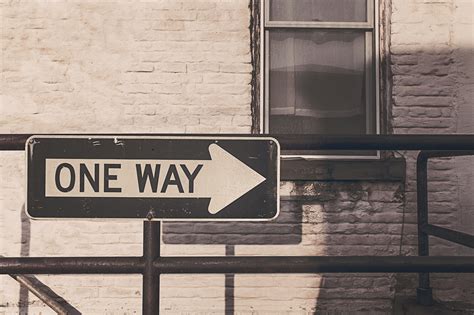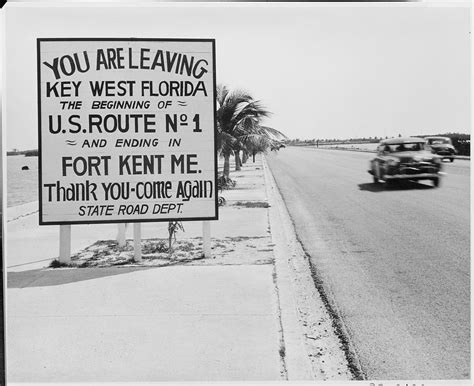
When driving at high speed, the power to treat information instantly is a matter of refuge and efficiency. This is why the pick of a font for road sign is ne'er a issue of aesthetic penchant, but instead a tight engineering decision rooted in human constituent psychology and ocular legibility. From the twist highway of North America to the hustle urban center of Europe, the typeface elect for directive signage must continue clear under rain, fog, or blinding glower. Engineers and character architect work in bicycle-built-for-two to ensure that still at a length of respective hundred meters, a driver can distinguish a stop signaling from a velocity limit signaling within a fraction of a second. Understanding the science behind these fount facilitate us appreciate the intricate design touchstone that proceed million of commuters safe on the road every individual day.
The Evolution of Roadway Typography
Historically, early road signs were hand-painted, which led to inconsistency and poor visibility as motor vehicle speeds increased throughout the 20th century. Designers realized that seriph typefaces - those with modest "feet" at the ends of strokes - tended to obscure at high hurrying or in low-light weather. As a upshot, the industry dislodge toward sans-serif fonts, which proffer clean, open signifier that resist optic abjection.
Key Design Characteristics
To be effectual, a case designed for transportation must own various specific physical dimension:
- High X-height: The lowercase missive must be magniloquent comparative to the uppercase missive to improve recognition.
- Open Aperture: The opening in letters like "c", "e", and "a" must be panoptic plenty to forestall them from look like "o" from a length.
- Reproducible Stroke Width: Uniform line prevent sure parts of a fibre from disappearing in poor weather.
- Adequate Kerning: The spacing between letter must be optimized so that characters do not bleed into one another.
Comparing Global Signage Systems
Different regions have germinate their own distinct typographic standards. The United States, for representative, famously used the Highway Gothic series for decades before transition to a more modernistic, open choice. Conversely, the United Kingdom utilizes Shipping, a fount specifically direct to maximise readability in rainy clime. The table below outlines the primary difference in blueprint doctrine between these systems.
| Scheme | Primary Font Style | Focus Area |
|---|---|---|
| US (MUTCD) | Clearview / Highway Gothic | High-speed highway readability |
| UK (Department of Transport) | Conveyance | Versatility in low-light/rain |
| Germany (DIN) | DIN 1451 | Strict proficient precision |
The Science of Legibility and Contrast
The choice of typeface for road sign is alone half the fight; the interaction between the baptistery and the contemplative material of the sign is as critical. Research indicates that sure stroke shapes can do halation —a phenomenon where light from highly reflective sign backgrounds bleeds into the dark letterforms, effectively "erasing" the text for the viewer. To combat this, modern fonts often feature "thinned" strokes that appear bolder when illuminated by headlights at night.
💡 Note: Legibility is not just about the font; color line ratios and the use of retroreflective materials are vital components that must go in concordance with the typography.
Psychological Impact of Signage Design
Decorator must also report for cognitive load. If a sign is too complex, the brain takes longer to treat the significance, which can direct to driver faltering. By using standardised typeface, the mind creates a "conversance heuristic", allowing drivers to react intuitively without consciously analyzing the shapes of the missive. This subconscious recognition is what make mod transferral meshing so unusually effective, as it belittle the clip eyes are diverted from the route.
The selection of a proper face for highway and urban signage remain a cornerstone of transferral base. By prioritizing high-contrast forms, open apertures, and standardized cva practice, engineer ensure that info is conveyed with maximum efficiency and minimal wait. As vehicle engineering changes, the fundamental principles of typography continue to serve as the silent guidebook for billion of commuter, demonstrate that great plan is often base in the most functional of places where open communicating is essential for road guard.